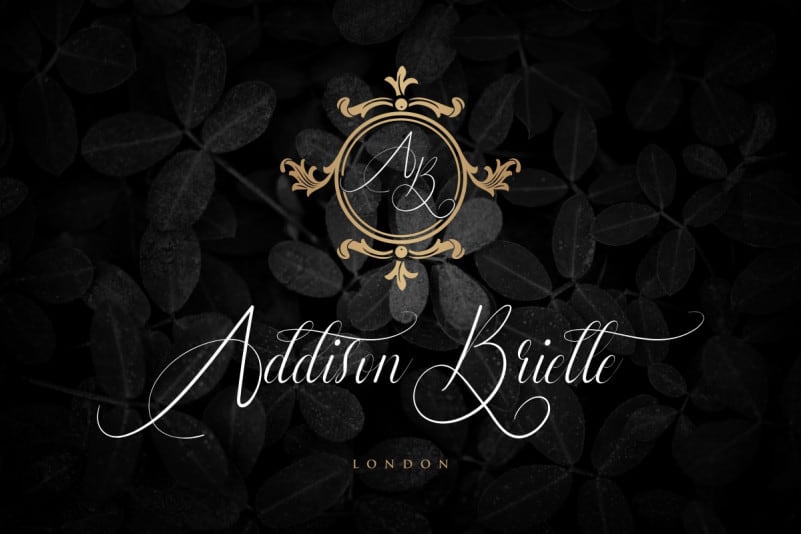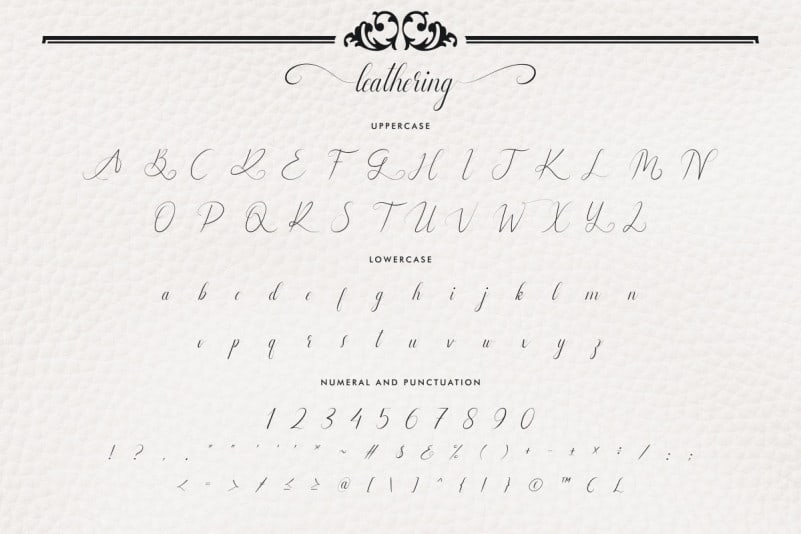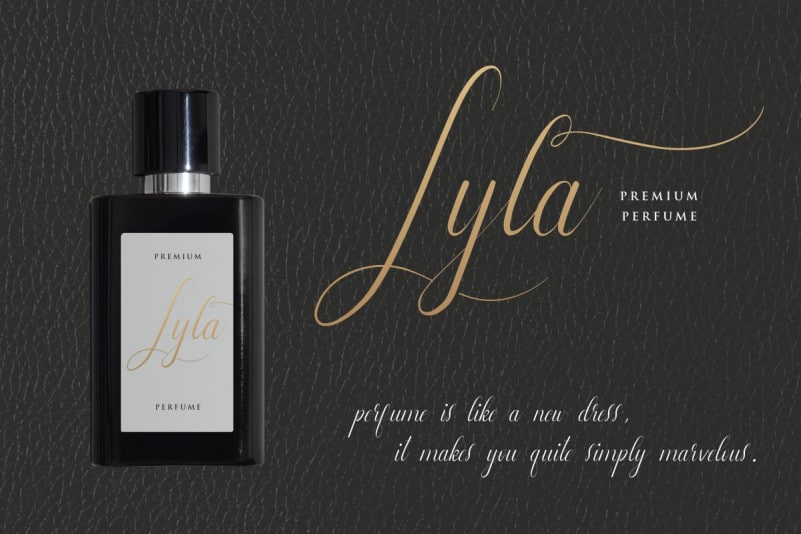
Leathering Calligraphy Script Font
Leathering Calligraphy Script Font is a beautiful and elegant script font. Fall in love with its authentic feel and use it to create gorgeous wedding invitations, beautiful stationary art, eye-catching social media posts, and cute greeting cards.
Leathering Calligraphy Script Font is PUA encoded which means you can access all of the cute glyphs and swashes with ease! It also features a wealth of special features including alternate glyphs and ligatures.